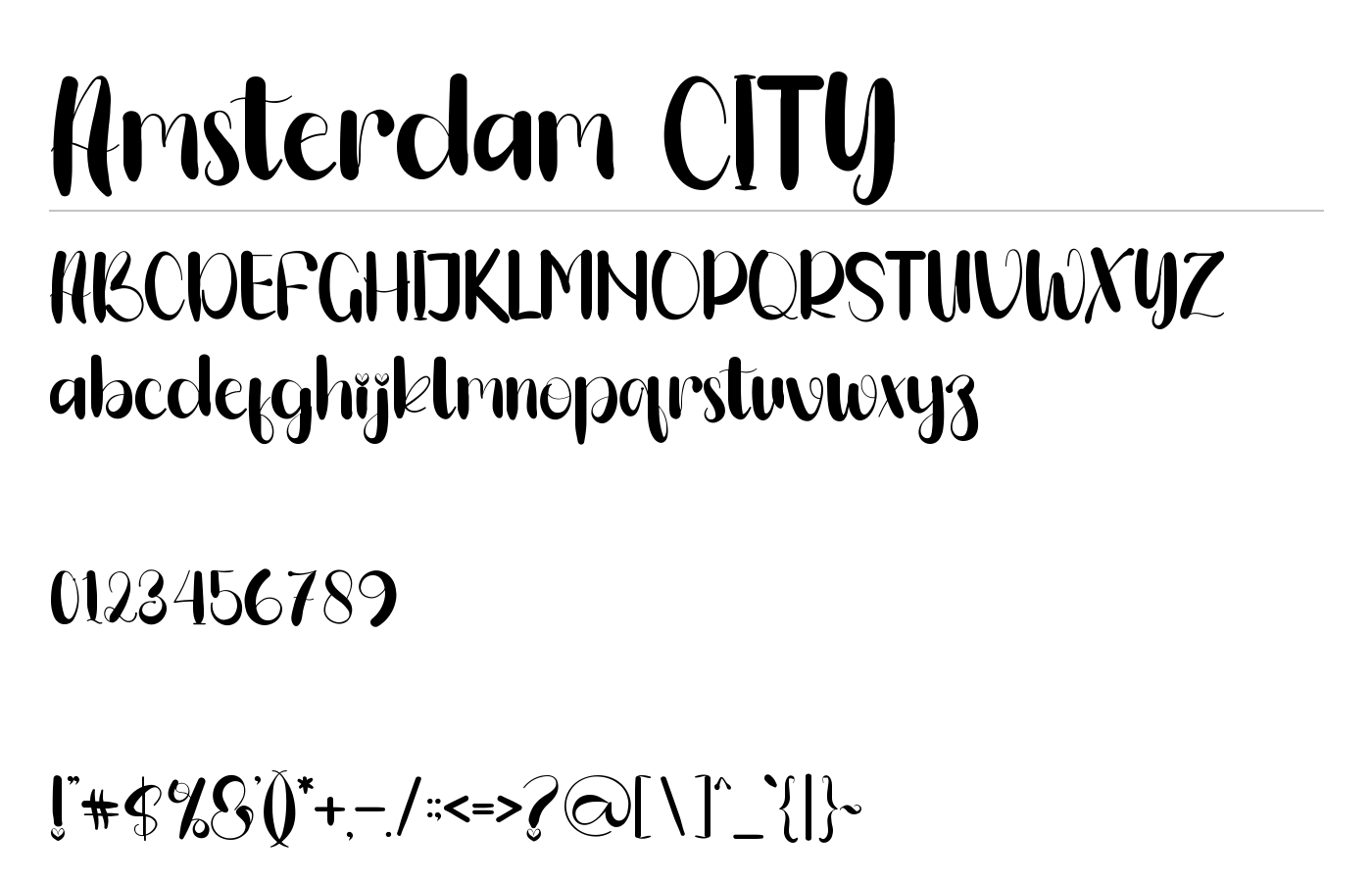
Amsterdam CITY is a playful and modern handwritten font with bold, rounded strokes and delicate, whimsical swashes that give it a lively and expressive personality. Its mix of thick and thin elements with unique letter shapes creates a cheerful, youthful vibe that works well for creative branding, invitations, and headlines where a fun and approachable style is desired.
Amsterdam CITY Font